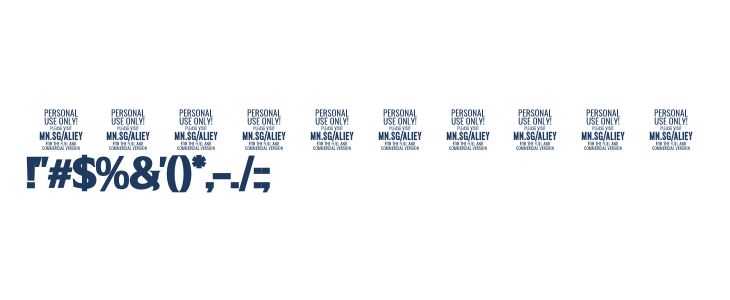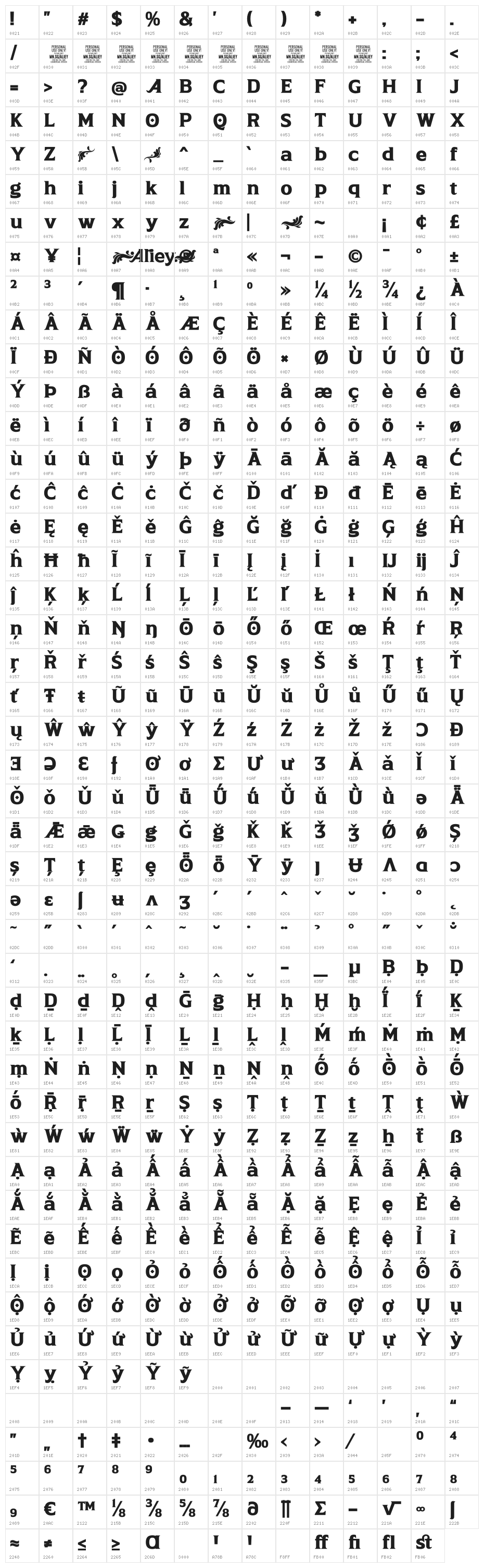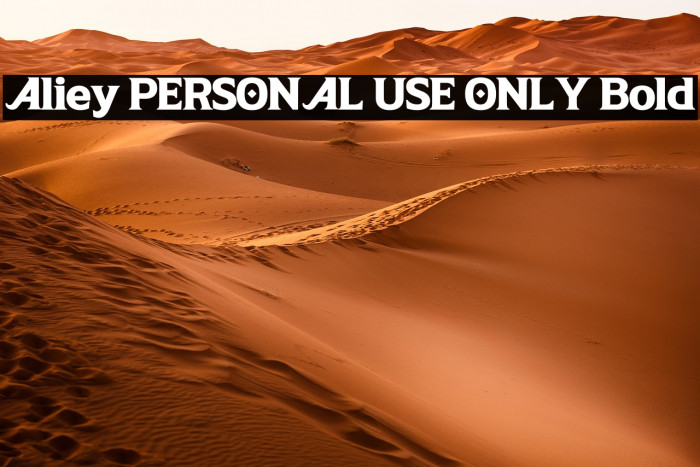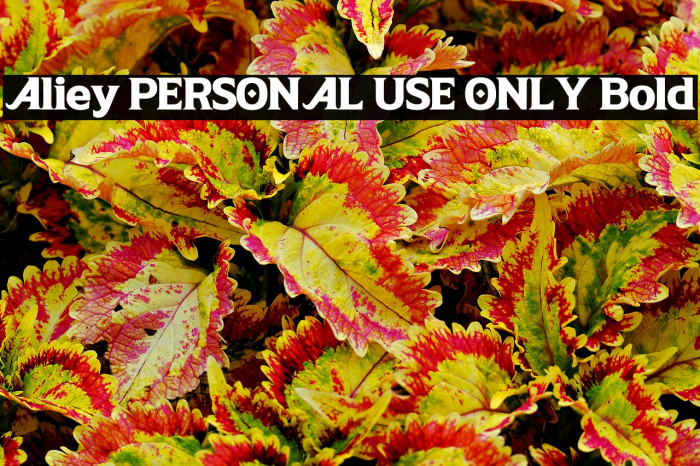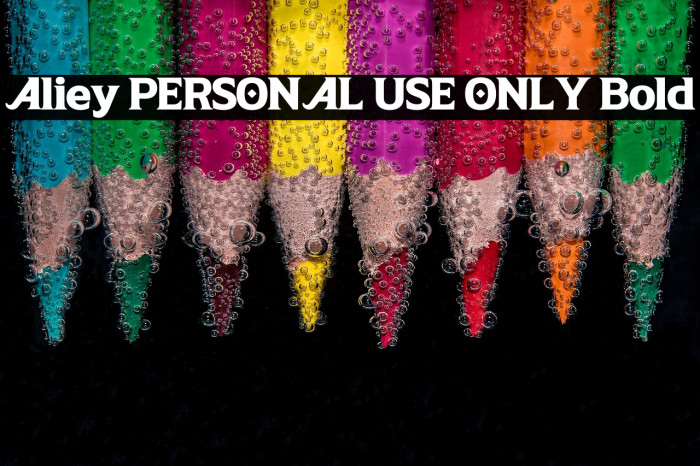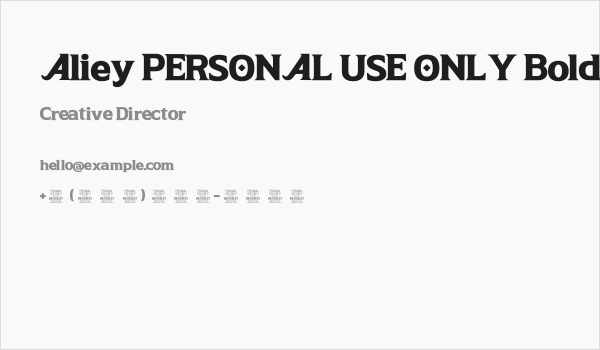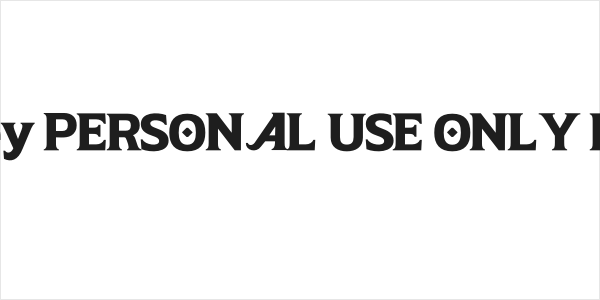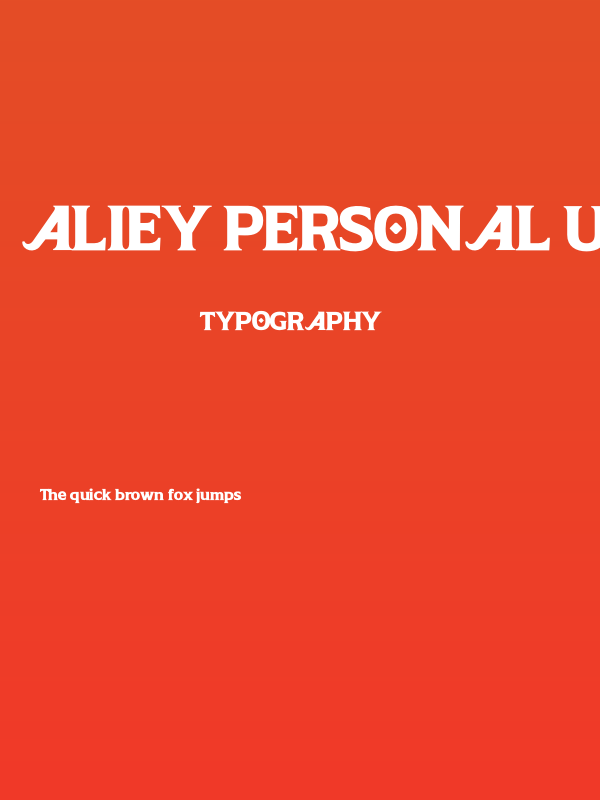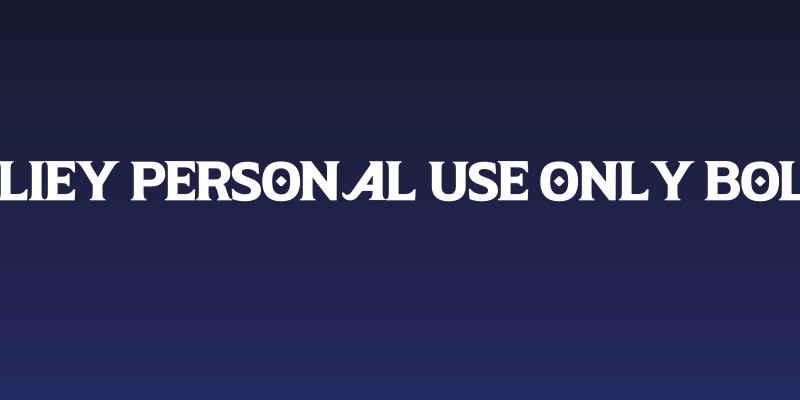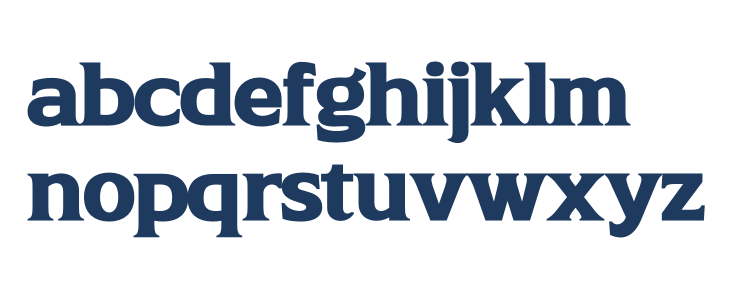
Aliey PERSONAL USE ONLY Bold Font
Aliey PERSONAL USE ONLY Bold Description
This bold and striking font features a strong presence with its thick, uniform strokes and slightly condensed letterforms. The uppercase letters exhibit a unique flair, particularly noticeable in the curved elements of characters like 'A' and 'R'. The lowercase letters maintain a consistent weight, providing a harmonious balance between the upper and lower cases. The font includes a full set of numerals and a variety of special characters, making it versatile for different design needs. Its bold nature and distinctive style make it ideal for attention-grabbing headlines and impactful designs.